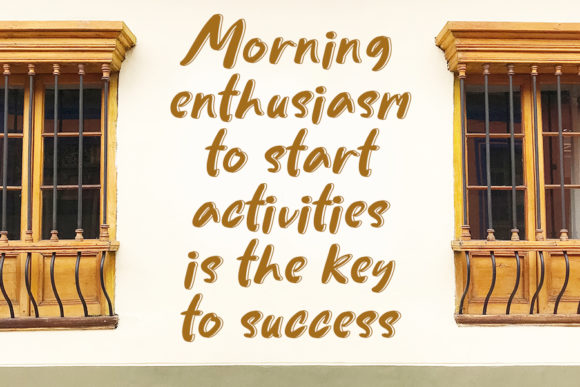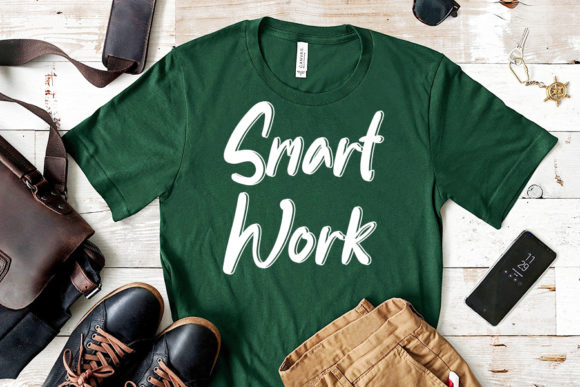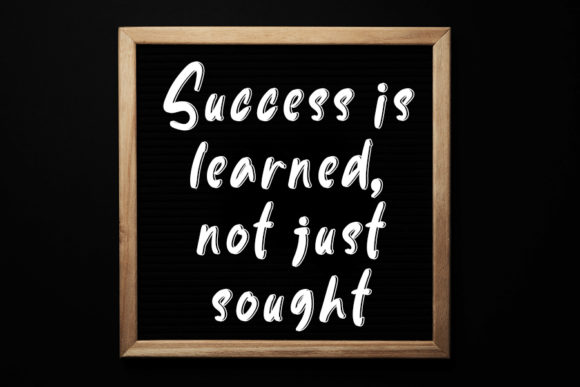
Introducing Good Morning Font: Elevate Your Designs with Elegance
Are you on the hunt for a font that adds a touch of sophistication and elegance to your projects? Look no further than the Good Morning Font. This beautifully crafted, flowing handwritten font is designed to bring a sense of refinement and timeless style to your designs. With its incredibly distinct and elegant touch, Good Morning Font is perfect for designers and crafters looking to create spectacular designs that stand out from the crowd.
The Characteristics of Good Morning Font
Good Morning Font is a masterpiece of typographic design, boasting a range of characteristics that set it apart from other fonts. Its flowing, handwritten style is both elegant and approachable, making it suitable for a wide range of projects, from wedding invitations and branding materials to social media graphics and digital art. The font’s elegant touch is evident in its smooth, cursive lines and delicate flourishes, which add a touch of sophistication to any design.
Why Choose Good Morning Font?
So, why should you choose Good Morning Font for your next project? Here are just a few reasons why this font stands out:
- Elegant and Refined: Good Morning Font’s elegant and refined style makes it perfect for projects that require a touch of sophistication.
- Timeless Style: Unlike trendy fonts that quickly go out of style, Good Morning Font’s timeless style ensures that your designs will remain stylish for years to come.
- Incredibly Distinct: Good Morning Font’s unique and distinct style sets it apart from other fonts, making it perfect for designers and crafters looking to create designs that stand out.
- Versatile: Good Morning Font is versatile and can be used for a wide range of projects, from digital designs to print materials.
Using Good Morning Font in Your Designs
Good Morning Font is incredibly easy to use and can be incorporated into your designs in a variety of ways. Here are a few ideas to get you started:
- Wedding Invitations: Add a touch of elegance to your wedding invitations with Good Morning Font.
- Branding Materials: Use Good Morning Font to create sophisticated branding materials, such as logos, business cards, and letterheads.
- Social Media Graphics: Add a touch of elegance to your social media graphics, such as Facebook posts and Instagram stories.
- Digital Art: Use Good Morning Font to create stunning digital art, such as typographic quotes and illustrations.
Tips for Getting the Most Out of Good Morning Font
Here are a few tips for getting the most out of Good Morning Font:
- Experiment with Different Sizes: Good Morning Font looks great in a variety of sizes, so don’t be afraid to experiment to find the perfect size for your design.
- Pair with Other Fonts: Good Morning Font pairs well with other fonts, so try combining it with a bold font for added contrast.
- Use it for Headings: Good Morning Font is perfect for headings and titles, so use it to add a touch of elegance to your designs.